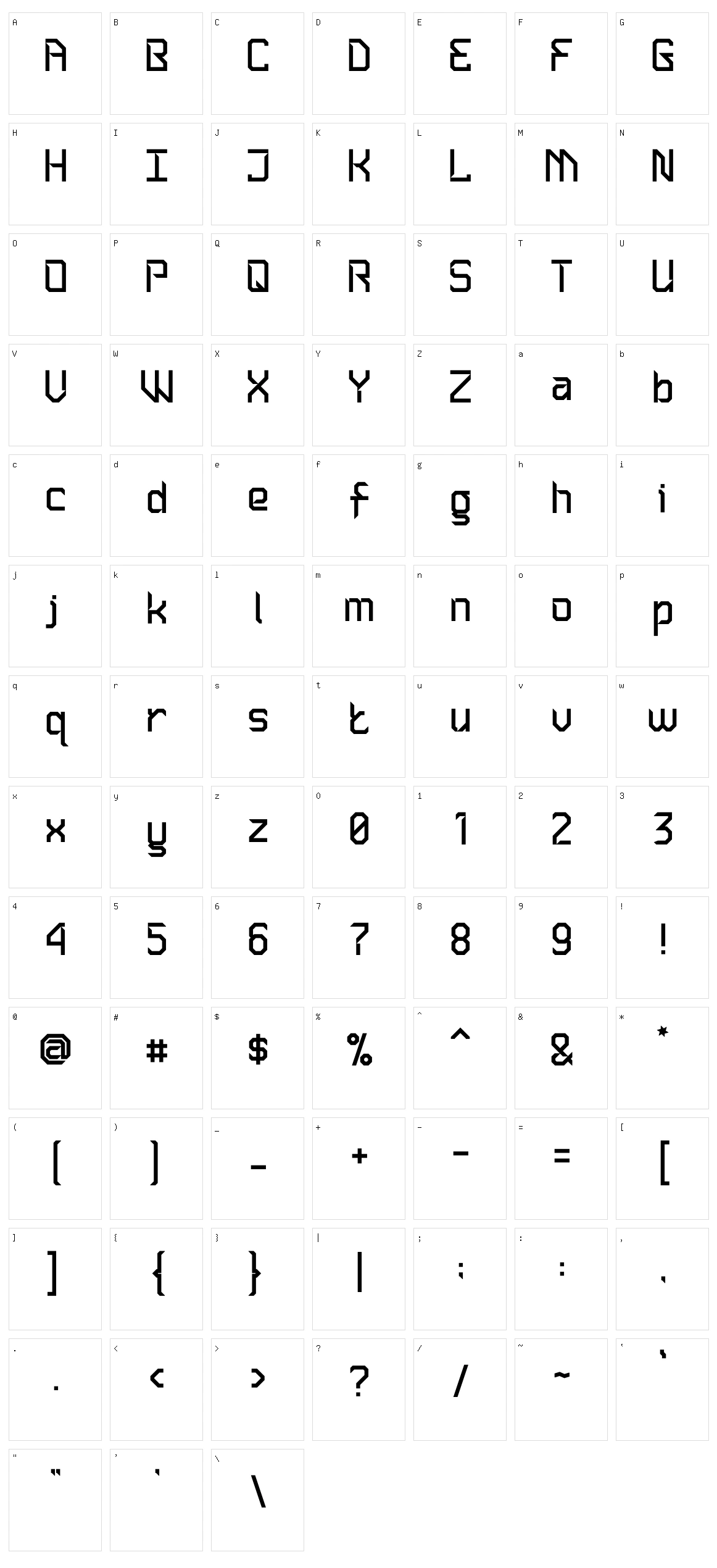
The free font Sliced AB is carefully designed by Alex Banks, showcasing a thoughtful balance of creativity and usability and falls under the Square font style. When you download the ZIP file, it contains only 203.39 KB of font files, making it lightweight and quick to download. Please review the license details below to understand permitted usage and distribution rights. If license information is not available, we recommend using this font for personal projects only or contacting the author directly for commercial usage permissions.